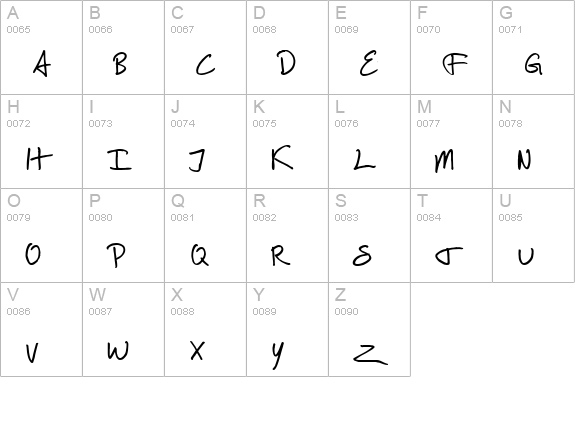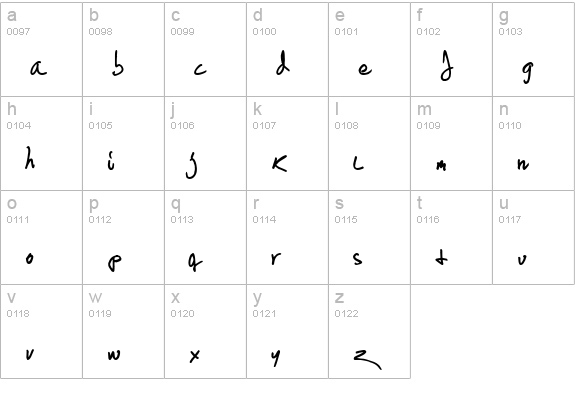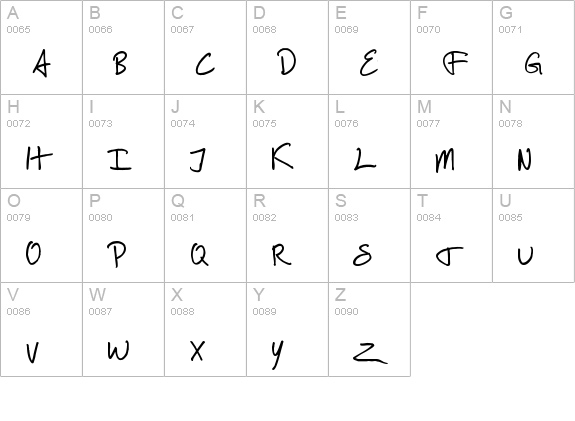
Scrawlies Font Details
Introducing Scrawlies font, a whimsical and delightful typeface that is sure to bring a touch of playful charm to any project. With its hand-drawn aesthetic and lively strokes, Scrawlies captures the essence of spontaneous creativity and adds a unique flair to your designs. This font is perfect for those seeking a free-spirited and casual vibe. Whether you're designing a poster, creating a logo, or adding a personal touch to your social media graphics, Scrawlies is here to elevate your work to new heights. What sets Scrawlies apart is not just its captivating appearance, but also its versatility. This font can be used across a wide range of projects, from children's books and illustrations to greeting cards and branding materials. Its quirky and irregular letterforms bring an element of fun and individuality, making every piece truly stand out. Best of all, Scrawlies is available for free download at FontsMarket.com. Yes, you read that right - this font is freely accessible to all. No need to worry about breaking the bank or compromising on quality. Simply visit FontsMarket.com, find Scrawlies font, and let your imagination run wild. So why wait? Embrace the creativity and joy that Scrawlies brings to your designs. Download it today and let your projects come to life with this unique and charming typeface. Scrawlies font - your go-to choice for all things whimsical and free!